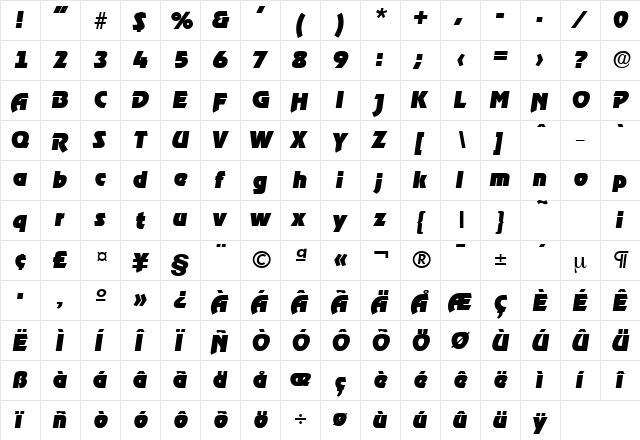
Ragtime-Serial-Black RegularItalic
Design Context for Ragtime-Serial-Black Typeface
Ragtime-Serial-Black is a composed and adaptable typeface that performs quietly and consistently across a wide range of design contexts. The slanted form adds forward momentum and visual energy.